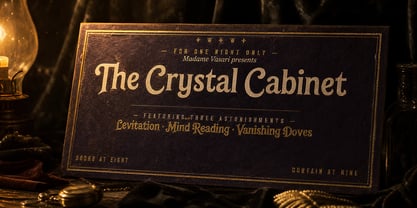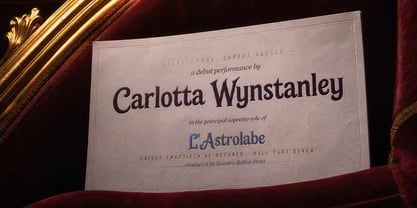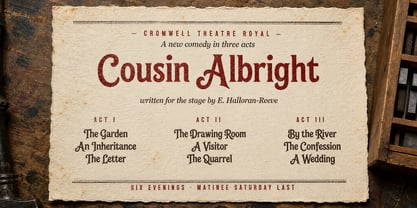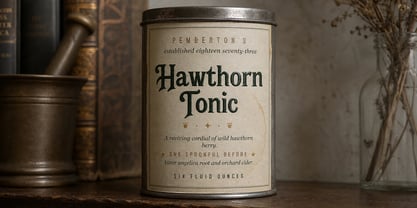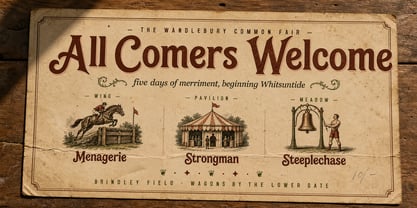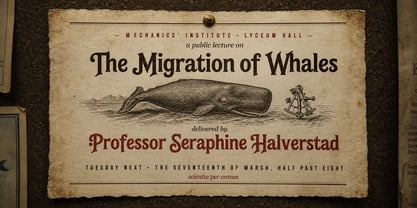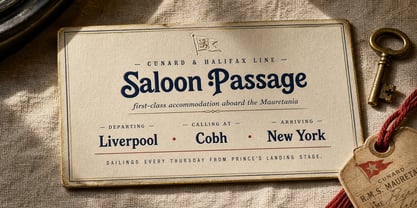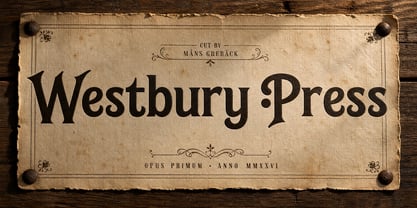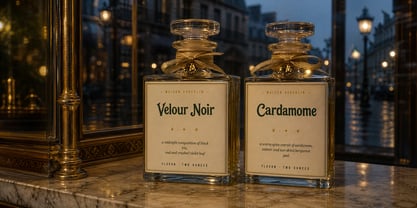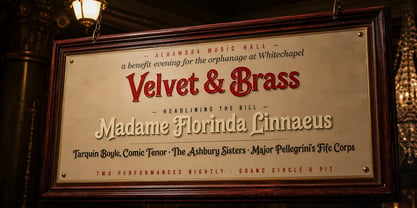
Westbury Press
Westbury Press is a Victorian decorative serif — the kind of woodtype face that ran across 19th-century circus broadsides and apothecary tonic bottles.
Bold high-contrast strokes with bracketed serifs, a small flourish at the cap terminals, and an italic that leans confidently without losing its weight. Caps carry an art-nouveau curl on the K, R, and S; lowercase descenders extend just enough to give phrases room to breathe.
Picture it pasted at dawn to a railway-station hoarding, or pressed in red ink across a magic-show handbill at the corner of two market streets.
The font is built with advanced functionality and guaranteed top-notch quality, containing stylistic and contextual alternates, ligatures and more automatic and manual features; all to give you full control and customizability.
It has extensive lingual support, covering all Latin-based languages, from North Europa to South Africa, from America to South-East Asia. It contains all characters and symbols you'll ever need, including all punctuation and numbers.
Designed and created by Måns Grebäck.
Måns Grebäck is a type designer and font creator specializing in script typography, but with a portfolio containing a vast selection of styles. Typefaces from Måns Grebäck are used as company and product logotypes, as well as headlines and in advertisement by a wide range of industries world-wide. Founded by Måns Grebäck in 2010, Mans Greback AB originally went under the name of Mawns Fonts and later Aring Typeface AB. While the foundry has its seat Örebro, Sweden, Måns also lives in Portugal. The Premium Foundry page can be viewed Here.